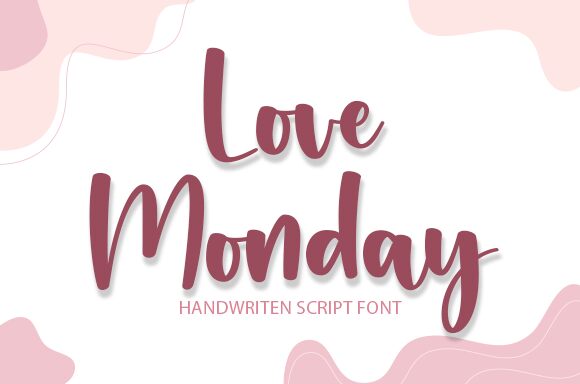
Love Monday
Love Monday, the charming handwritten font by Graphix Line Studio, is the perfect choice for any project that needs a personal touch. Its unique style adds a playful and fun vibe to your designs, making it ideal for anything from greeting cards and invitations to social media posts and branding materials. The semi-bold font weight ensures readability, while the varying stroke widths create a natural flow that mimics handwriting. Love Monday is versatile enough to be used in both print and digital formats, making it a must-have addition to any designer's toolkit. Start spreading love with Love Monday today!